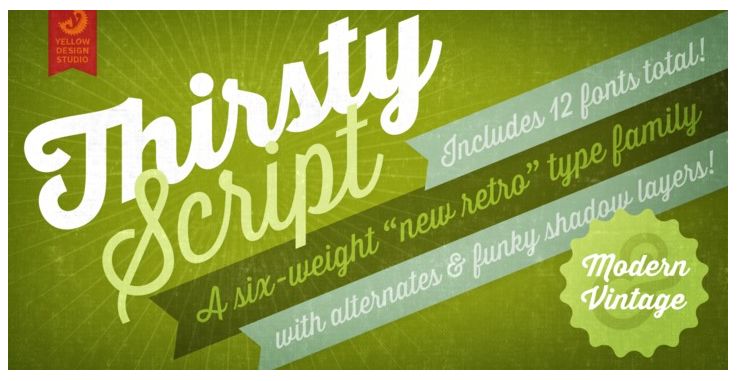
Font Frenzy: Thirsty Script
We know it’s easy for a designer to kind of get locked into using their favorite fonts over and over, but sometimes you’ve got to broaden your designer’s toolbox. Got a thirst for a delicious retro stylish font? Thirsty Script has it all—the famil comes with optional ligatures, six different weights, shadows,and  contextual and stylistic alternates. The whole family is on sale right now for about $26 US or you can buy just the main font for less if you choose. Example below. Have fun!